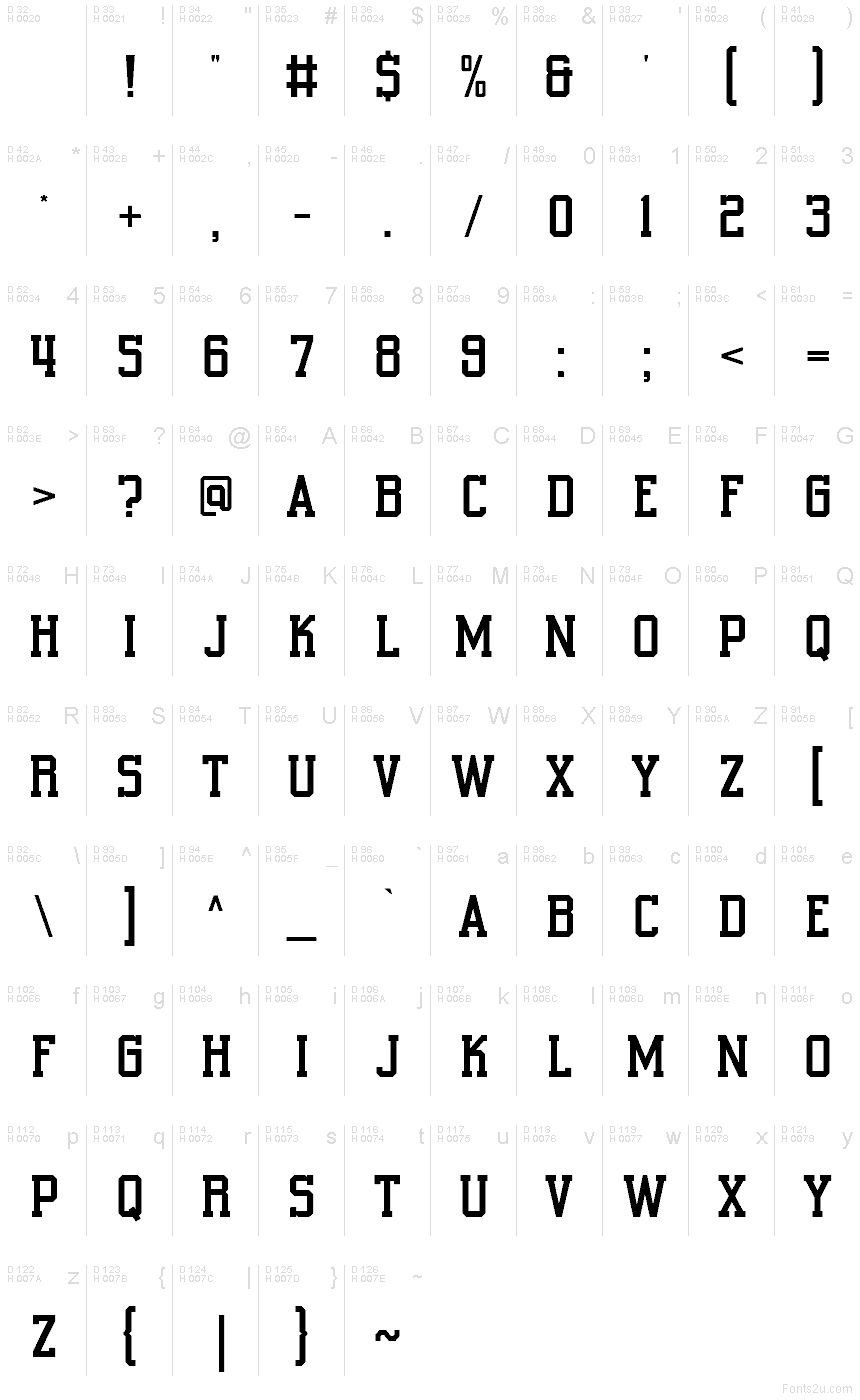
Origin Athletic
Origin Athletic font by HansCo is an old-school, condensed display font that showcases a commendable sporting spirit. The inspiration behind the design comes from classic, collegiate aesthetics that are effortlessly appealing with their well-structured look. Featuring traditional elements mixed with contemporary vibes, Origin Athletic evokes professional athletics through its vintage-inspired style.